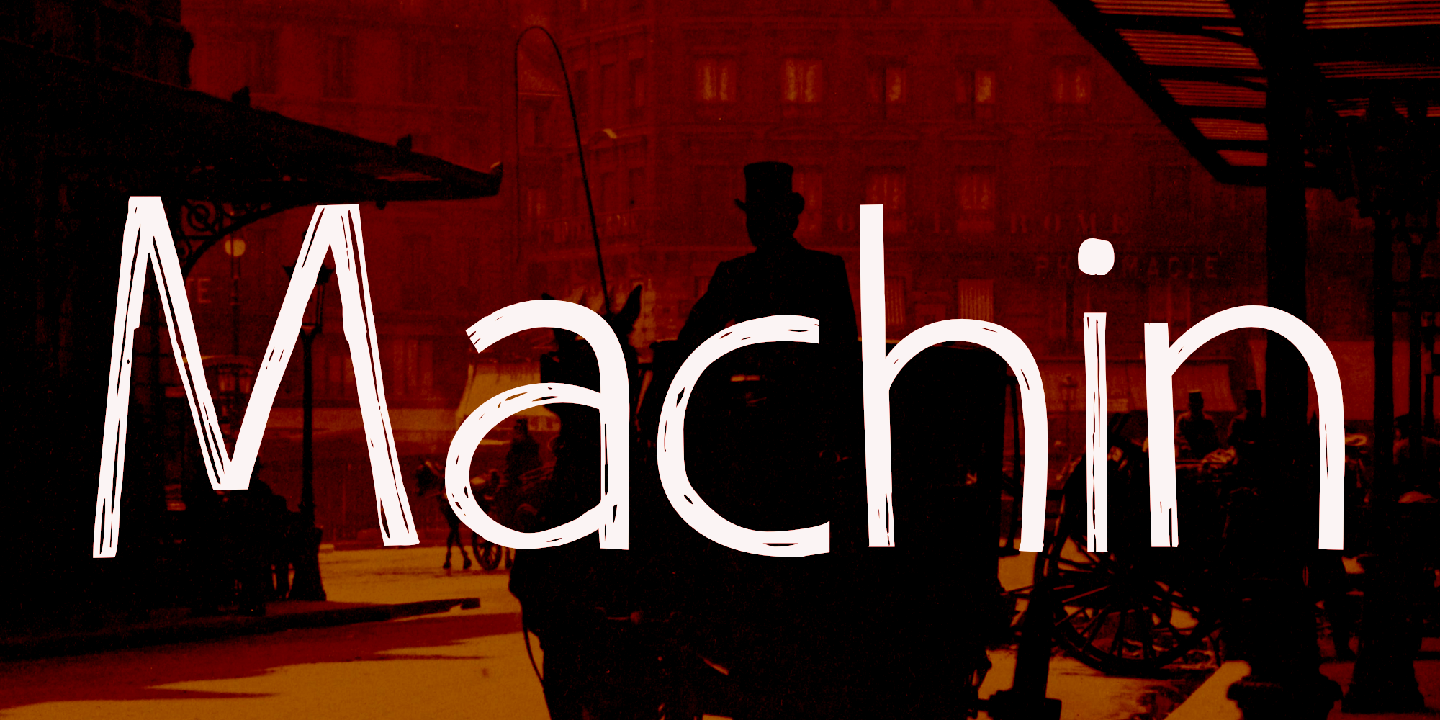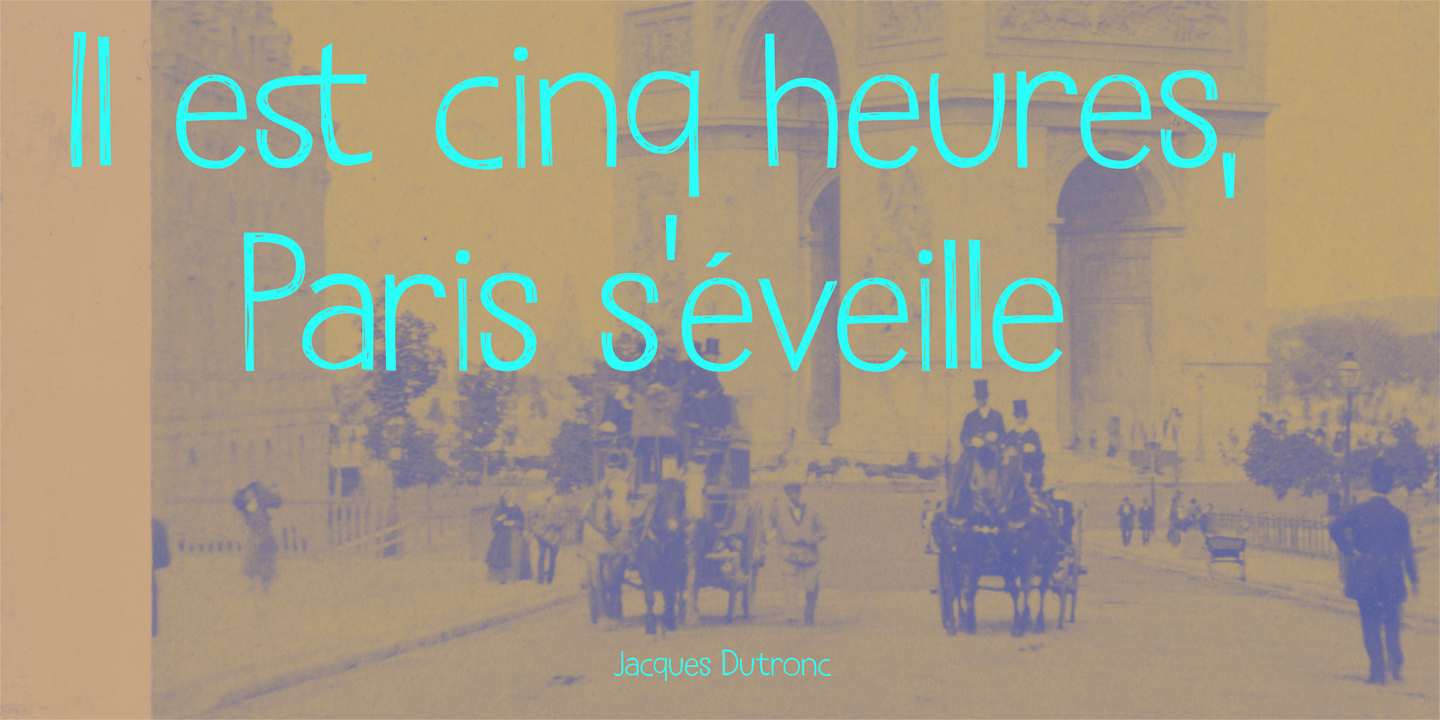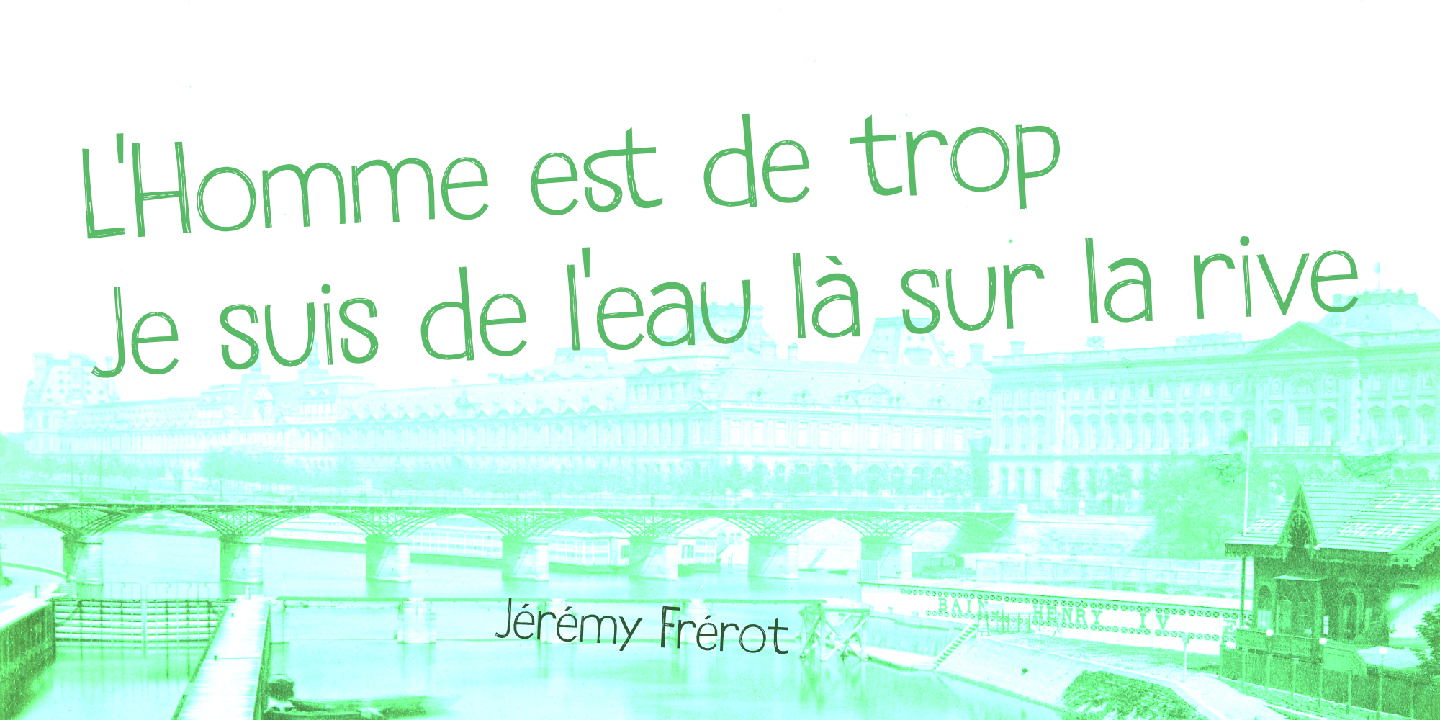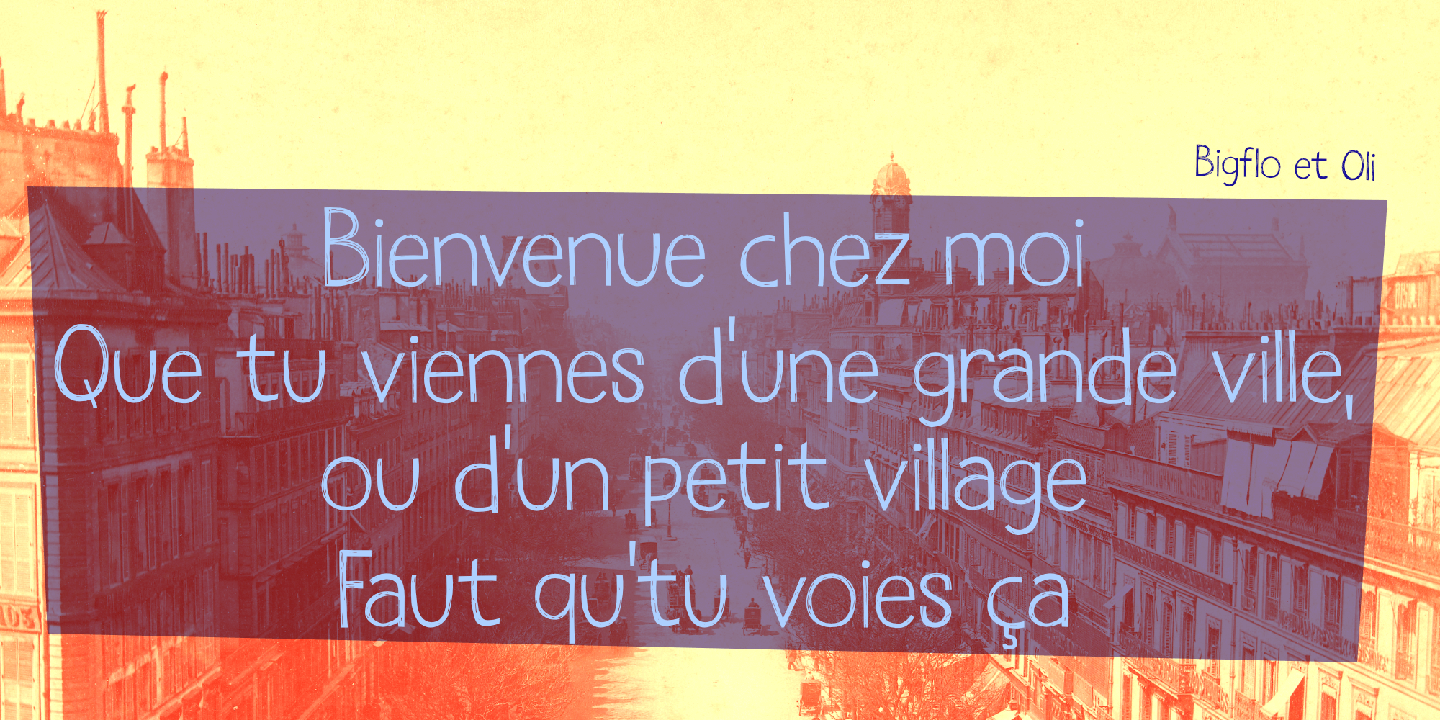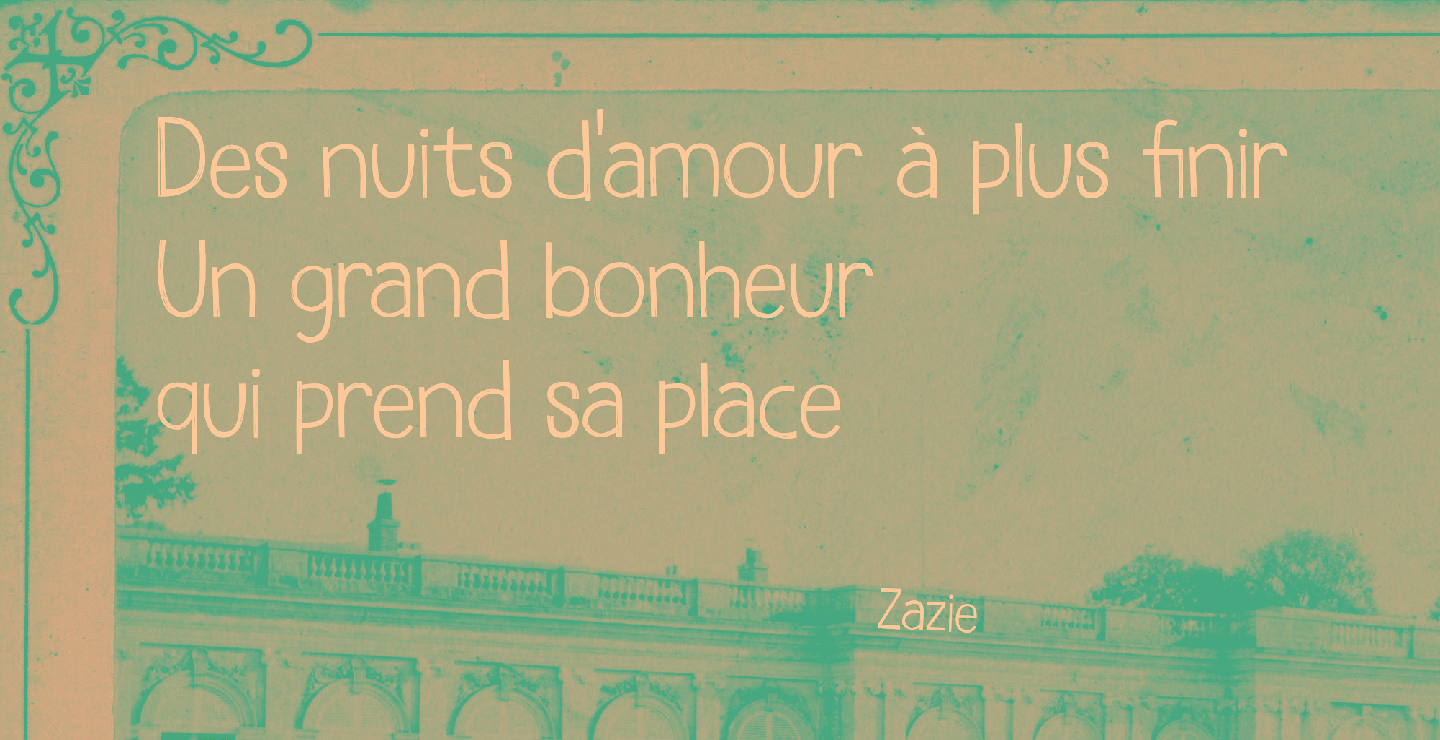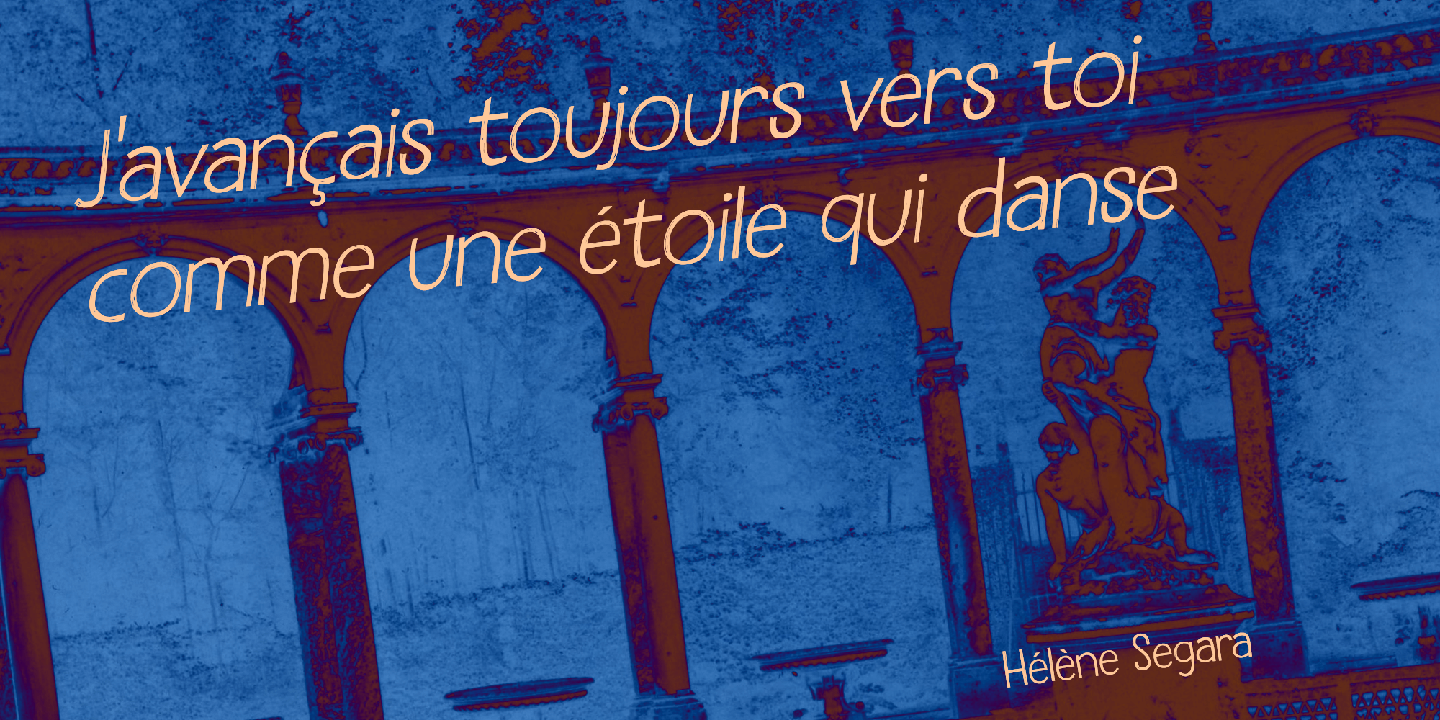
Machin
Font Family by Hanoded
Machin is based on a really old font I made back in the day. It was called Whynot and (because I didn't know a thing about making fonts at the time) I could not get it to work properly, so it had its 15 minutes of fame before it was pulled off of the internet. Machin was made using the recycled glyphs from Whynot and it does work. It comes with extensive language support (yes, Vietnamese and Sami too), some handy ligatures and a lot of scribbly panache.